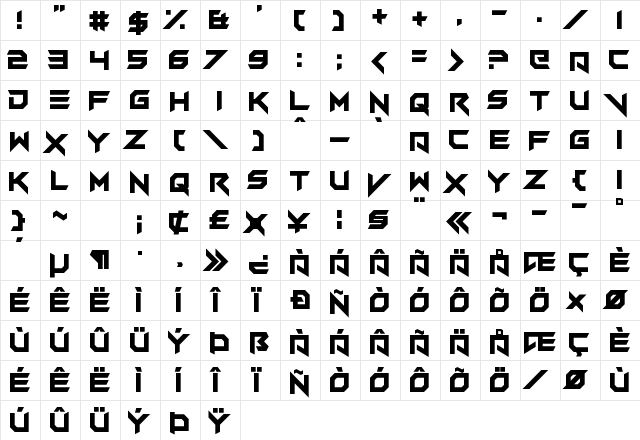
Vermin Vibes V Regular
Design Context for Vermin Vibes V Typeface
Vermin Vibes V is a composed and adaptable typeface that performs quietly and consistently across a wide range of design contexts.